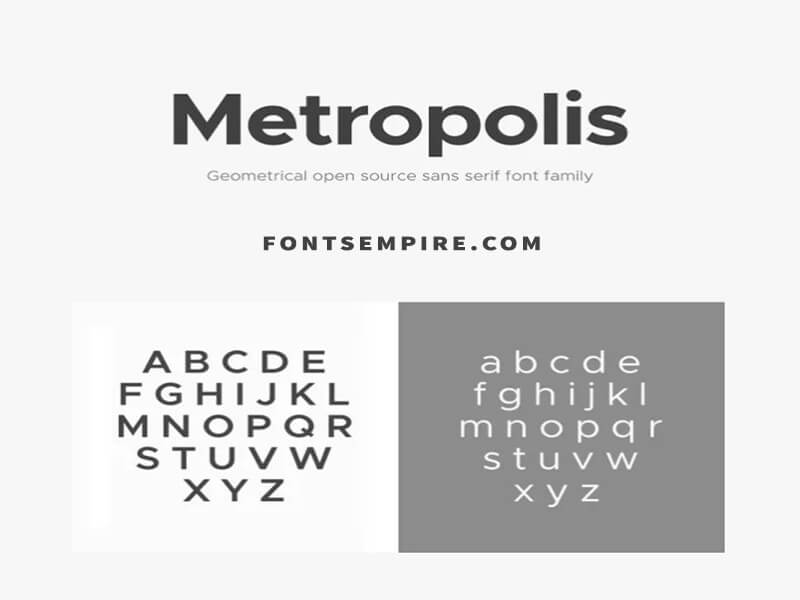
A modern geometric typeface.
Through the elegant lines and sinuous curves this font works perfectly for a display reading or beautifully as a headline or as body copy. The result is a bold bumptious typeface with a stolidly calm disposition says typography designer josip kaleva from melbourne australia. Please look at the readme files in the archives or check the indicated authors website for details and contact himher if in doubt. Influenced by other popular geometric minimalist sans serif typefaces of the new millennium.